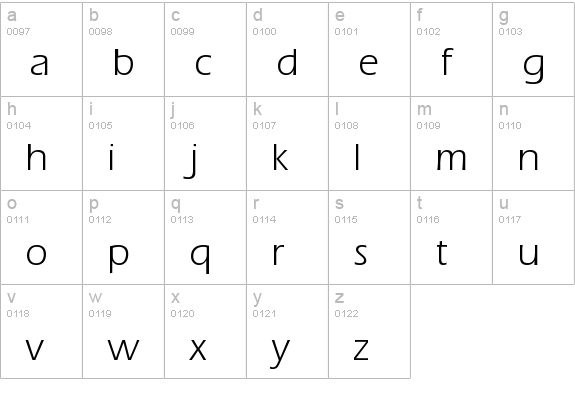
Eric Normal is the standard, neutral variant in the Eric typeface family \xE2\x80\x94 well suited to general body text, paragraphs, and standard typographic work.
Eric Normal font is a versatile and modern typeface that is perfect for a wide range of design projects. With its clean lines and balanced proportions, this font exudes a sense of professionalism and sophistication. Whether you're working on branding, advertising, or editorial design, Eric Normal font will elevate your work and give it a polished finish. The best part? Eric Normal font is available for free download at FontsMarket.com. This means you can easily access this high-quality font and use it in your projects without any cost. Don't miss out on the opportunity to enhance your designs with the elegant and timeless appeal of Eric Normal font. Download it now and start creating beautiful typography that will captivate your audience.